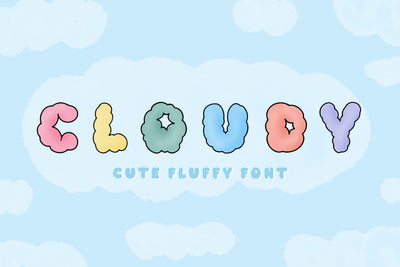
Cloudy - Cute Fluffy All-Caps Font
Cloudy is a cute fluffy all caps hand drawn font. You can use this font in various projects - blog posts, logos, branding, digital planner, digital notes, invitations, greeting cards, planners, digital journal, photo albums, study notes, school notes, college notes, decorations and much more. Its authentic look and feel will add a personal and realistic feel to your designs.
The font includes uppercase outline and solid, numbers, punctuations